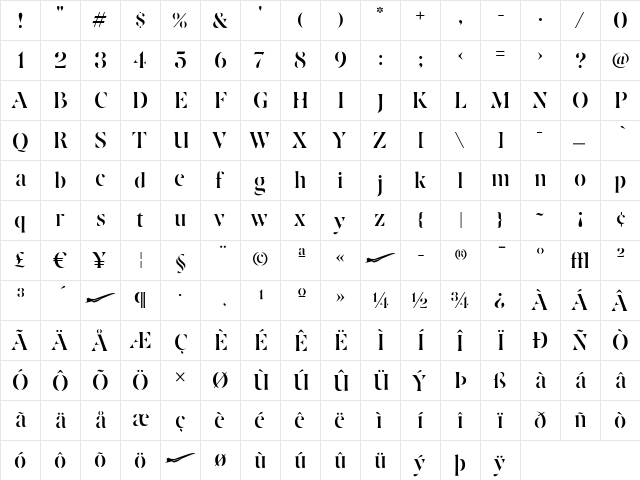
Avia-Regular Regular
| Designer | Raphael Boguslav and Jill Pichotta |
Design Context for Avia-Regular Typeface
Avia-Regular is a composed and adaptable typeface that performs quietly and consistently across a wide range of design contexts.